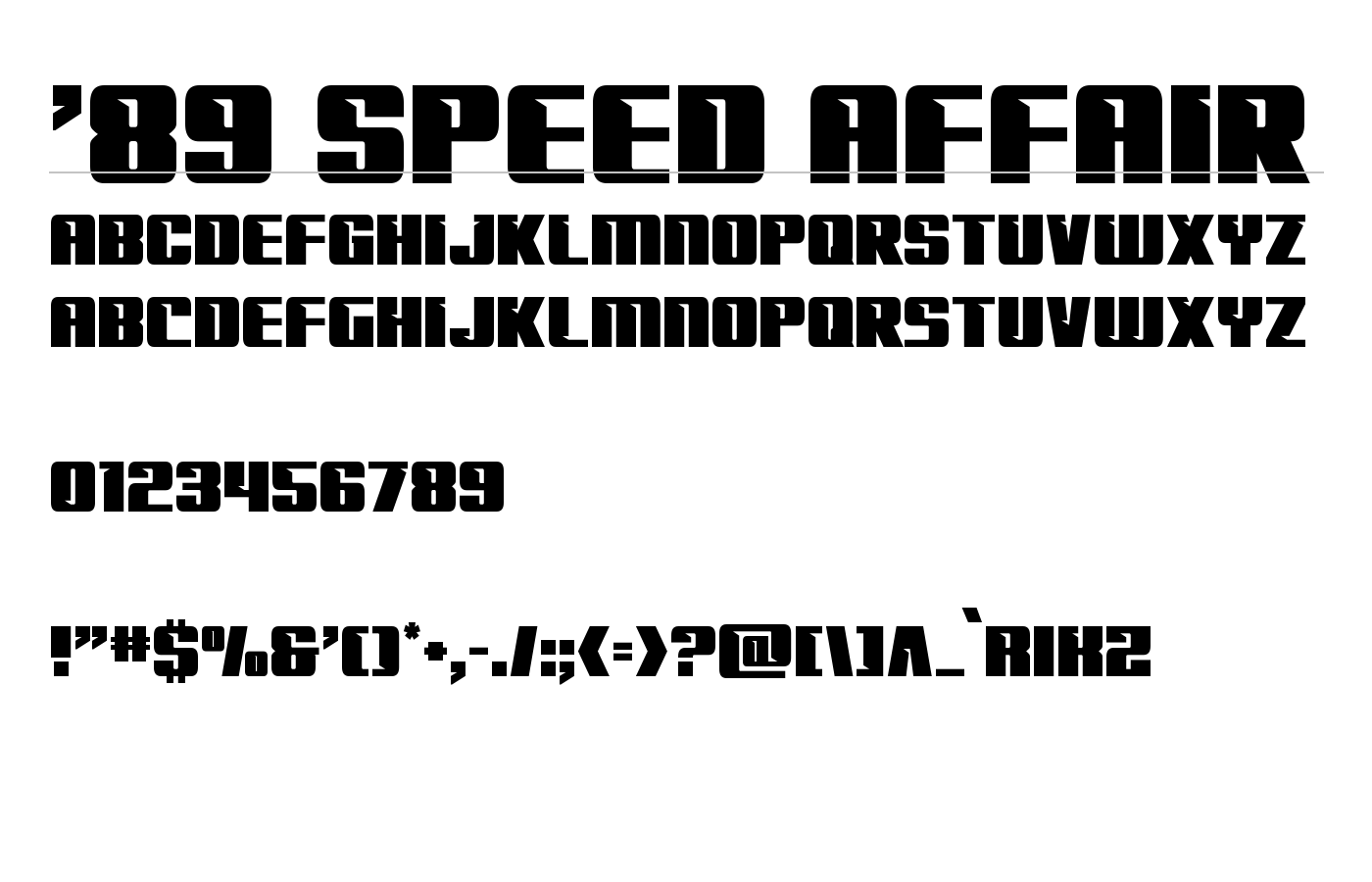
'89 Speed Affair is a bold, condensed sans serif font with strong geometric shapes and high stroke contrast, giving it a powerful and dynamic presence. Its sharp angles and blocky silhouettes create a futuristic, retro-inspired look perfect for striking headlines, posters, and branding that demands attention with a sporty, energetic vibe. This font works especially well in projects aiming for a modern yet nostalgic feel, such as fashion labels, tech-related designs, and edgy editorial layouts.
'89 Speed Affair Font
About '89 Speed Affair Font